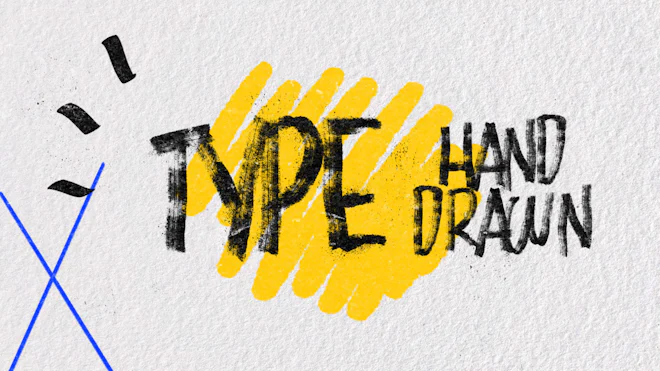
This stock motion graphics video pack includes 44 different clips of bold hand-drawn letters, numbers, and symbols on a transparent alpha channel in a seamless loop.